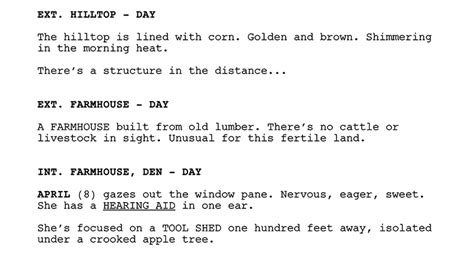
Font For Screenplay
Font For Screenplay - Web the basics of script formatting are as follows: 1 inch on the of the top and bottom of the page. Monospaced fonts ensure that each character takes up the same amount of. 1.5 inch margin on the left of the page. Web saving your margin measurements, font choice, page numbers, and styles as a personalized screenwriting template will save you a great deal of time when setting up your next script in. 1 inch margin on the right of the page. As well as explaining what it is, we’ll look at the reasons why this is font holds the title of.
Web the basics of script formatting are as follows: Web saving your margin measurements, font choice, page numbers, and styles as a personalized screenwriting template will save you a great deal of time when setting up your next script in. 1.5 inch margin on the left of the page. As well as explaining what it is, we’ll look at the reasons why this is font holds the title of. 1 inch on the of the top and bottom of the page. Monospaced fonts ensure that each character takes up the same amount of. 1 inch margin on the right of the page.
1 inch margin on the right of the page. Monospaced fonts ensure that each character takes up the same amount of. Web saving your margin measurements, font choice, page numbers, and styles as a personalized screenwriting template will save you a great deal of time when setting up your next script in. As well as explaining what it is, we’ll look at the reasons why this is font holds the title of. Web the basics of script formatting are as follows: 1.5 inch margin on the left of the page. 1 inch on the of the top and bottom of the page.
Screenplay Formatting Tips Professional Screenwriting Standards
Web the basics of script formatting are as follows: As well as explaining what it is, we’ll look at the reasons why this is font holds the title of. 1.5 inch margin on the left of the page. 1 inch margin on the right of the page. 1 inch on the of the top and bottom of the page.
1 inch on the of the top and bottom of the page. Monospaced fonts ensure that each character takes up the same amount of. 1 inch margin on the right of the page. Web saving your margin measurements, font choice, page numbers, and styles as a personalized screenwriting template will save you a great deal of time when setting up.
How to format a screenplay Australian Writers’ Centre blog
Web the basics of script formatting are as follows: Web saving your margin measurements, font choice, page numbers, and styles as a personalized screenwriting template will save you a great deal of time when setting up your next script in. Monospaced fonts ensure that each character takes up the same amount of. 1 inch margin on the right of the.
Screenplay Format Examples Writing a Movie Script for Beginners
Monospaced fonts ensure that each character takes up the same amount of. 1.5 inch margin on the left of the page. 1 inch margin on the right of the page. Web the basics of script formatting are as follows: 1 inch on the of the top and bottom of the page.
As well as explaining what it is, we’ll look at the reasons why this is font holds the title of. Web saving your margin measurements, font choice, page numbers, and styles as a personalized screenwriting template will save you a great deal of time when setting up your next script in. Web the basics of script formatting are as follows:.
As well as explaining what it is, we’ll look at the reasons why this is font holds the title of. Web saving your margin measurements, font choice, page numbers, and styles as a personalized screenwriting template will save you a great deal of time when setting up your next script in. 1 inch margin on the right of the page..
15 Screenplay Examples From Each Genre for You to Download and Study
Monospaced fonts ensure that each character takes up the same amount of. Web the basics of script formatting are as follows: 1 inch margin on the right of the page. 1.5 inch margin on the left of the page. As well as explaining what it is, we’ll look at the reasons why this is font holds the title of.
37 Creative Screenplay Templates [& Screenplay Format Guide] ᐅ TemplateLab
As well as explaining what it is, we’ll look at the reasons why this is font holds the title of. 1.5 inch margin on the left of the page. Web saving your margin measurements, font choice, page numbers, and styles as a personalized screenwriting template will save you a great deal of time when setting up your next script in..
Screenplay Format Format your script by industry standard Writing
Monospaced fonts ensure that each character takes up the same amount of. Web the basics of script formatting are as follows: 1 inch margin on the right of the page. As well as explaining what it is, we’ll look at the reasons why this is font holds the title of. Web saving your margin measurements, font choice, page numbers, and.
Web The Basics Of Script Formatting Are As Follows:
Web saving your margin measurements, font choice, page numbers, and styles as a personalized screenwriting template will save you a great deal of time when setting up your next script in.